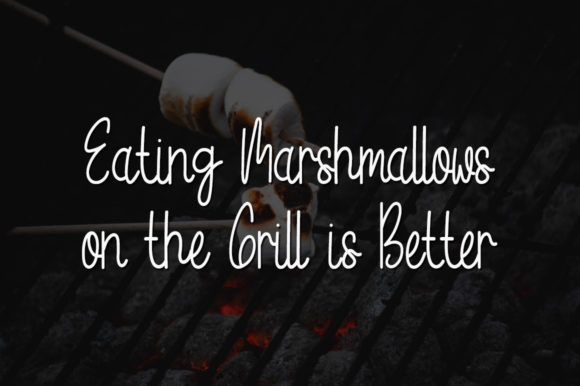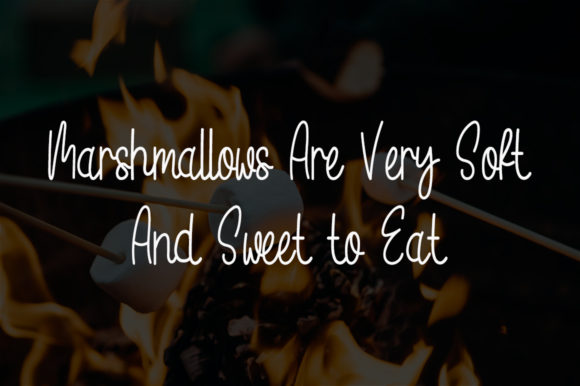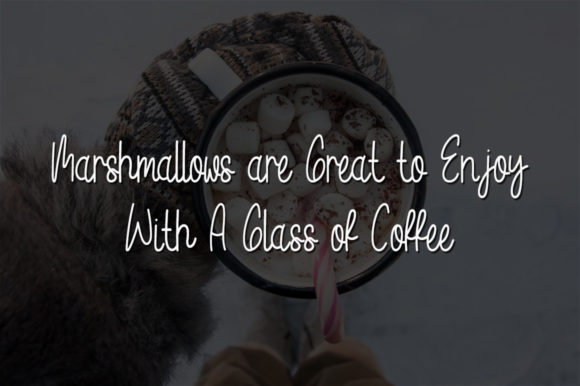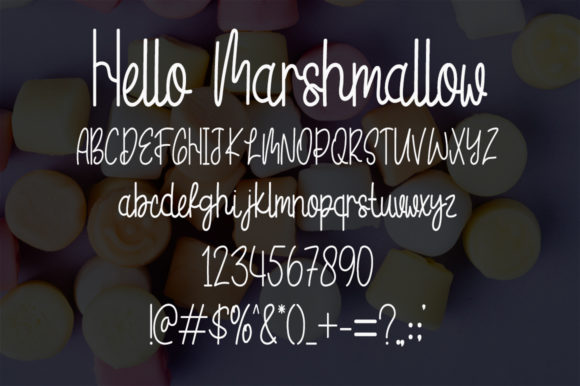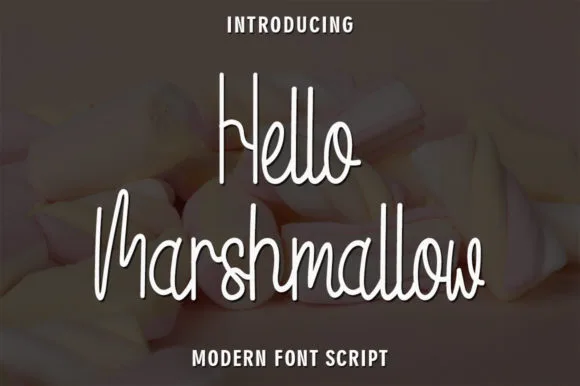
Hello Marshmallow Font
Hello Marshmallow is a simple, cursive and well balanced handwritten font. Elegant and original, this font will make each of your designs stand out!